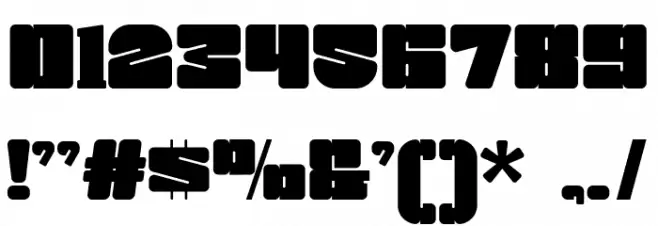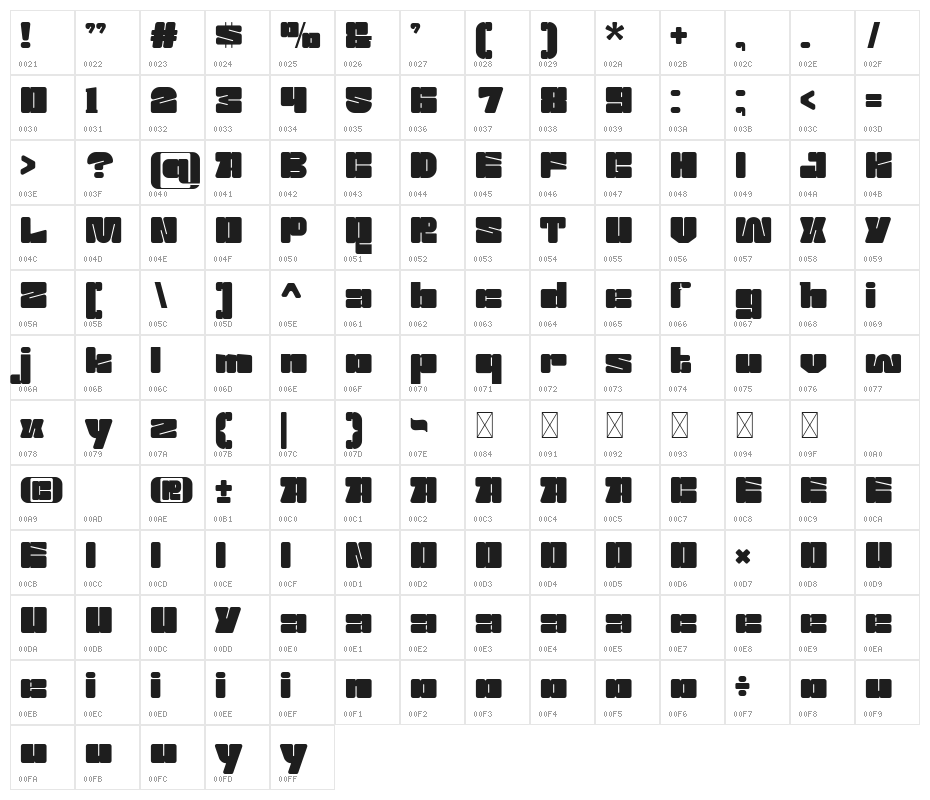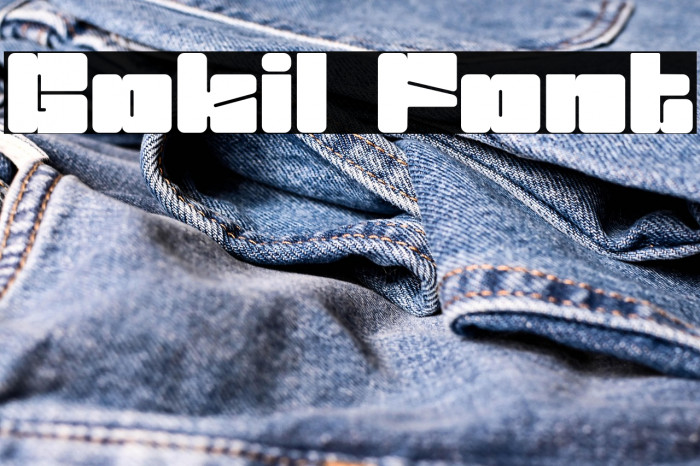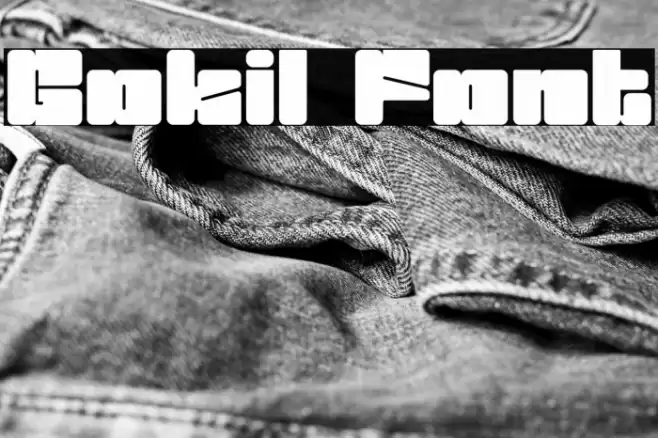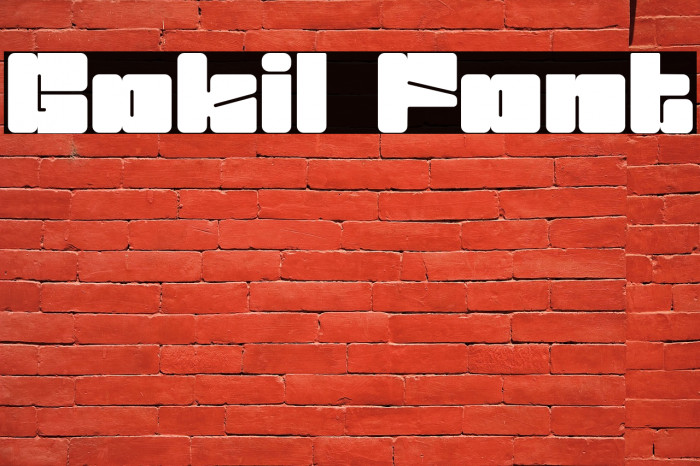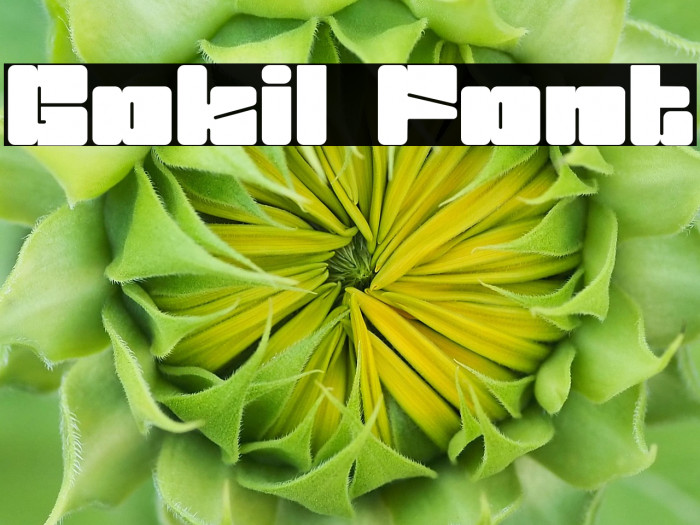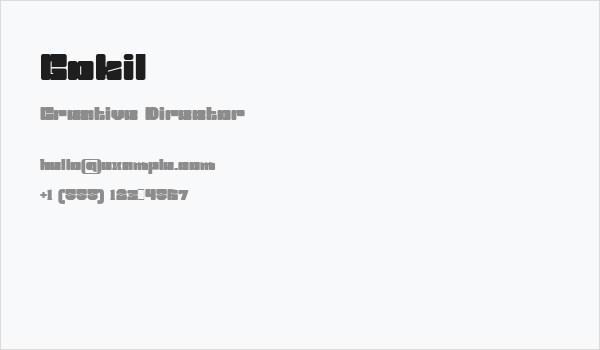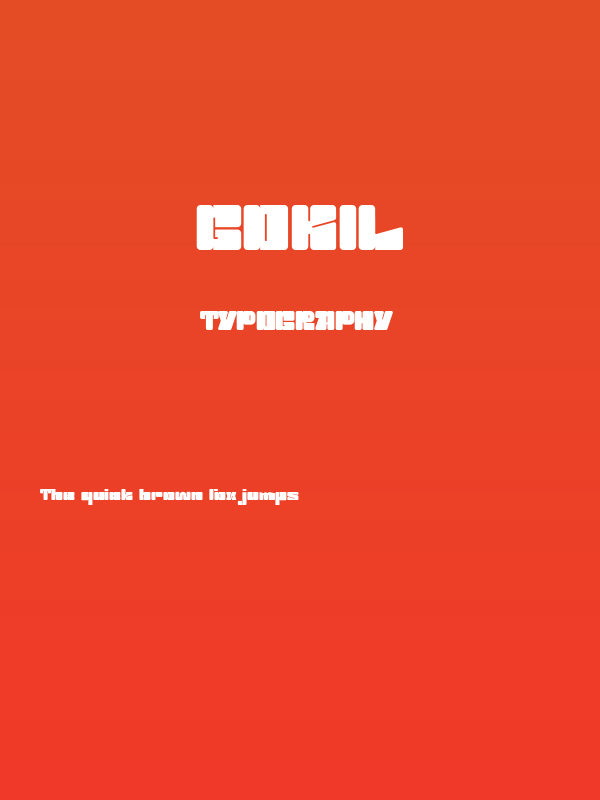
Gokil Font
Gokil Description
This font features a bold and striking design with a strong geometric influence. The characters are heavily stylized with thick, block-like forms that create a sense of solidity and impact. The uppercase and lowercase letters maintain a consistent width, giving the font a uniform appearance. The numbers and special characters follow the same bold style, ensuring cohesiveness across all elements. The font's unique design makes it stand out, with a modern and edgy feel that is perfect for attention-grabbing headlines or logos.
| Proposed Projects | Ideal for branding, poster design, album covers, and any project requiring a bold statement. |